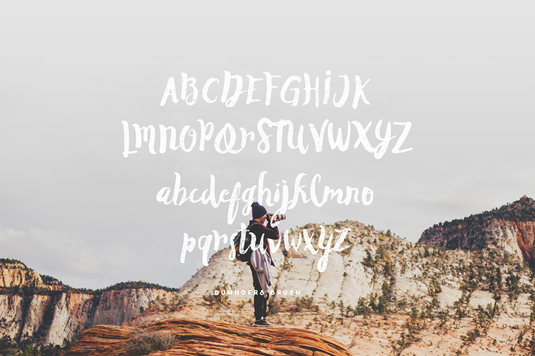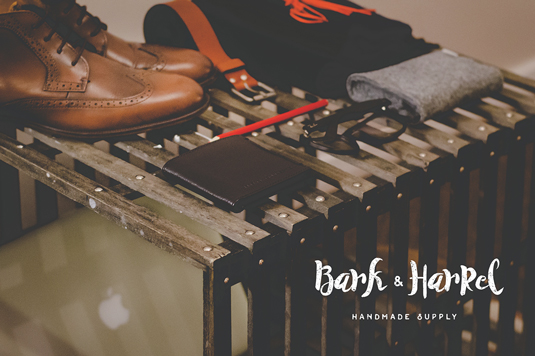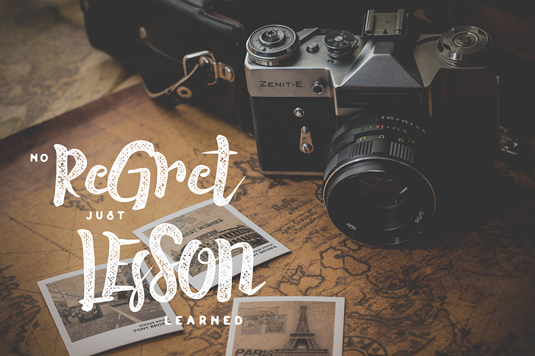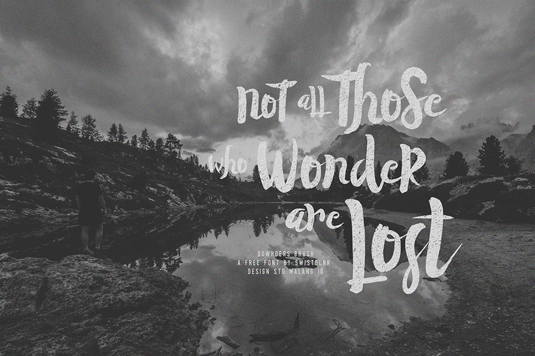
Font of the day: Duwhoers
Duwhoers by Agga Swist'blnk
Graphic designer Agga Swist'blnk is no stranger to Creative Bloq, with her brilliant typographic designs featuring regularly as our font of the day. And today's offering, Duwhoers, is no exception. A modern brush font with vintage handmade feel, Duwhoers is available to download for free, for both personal and commercial use, over on Behance.